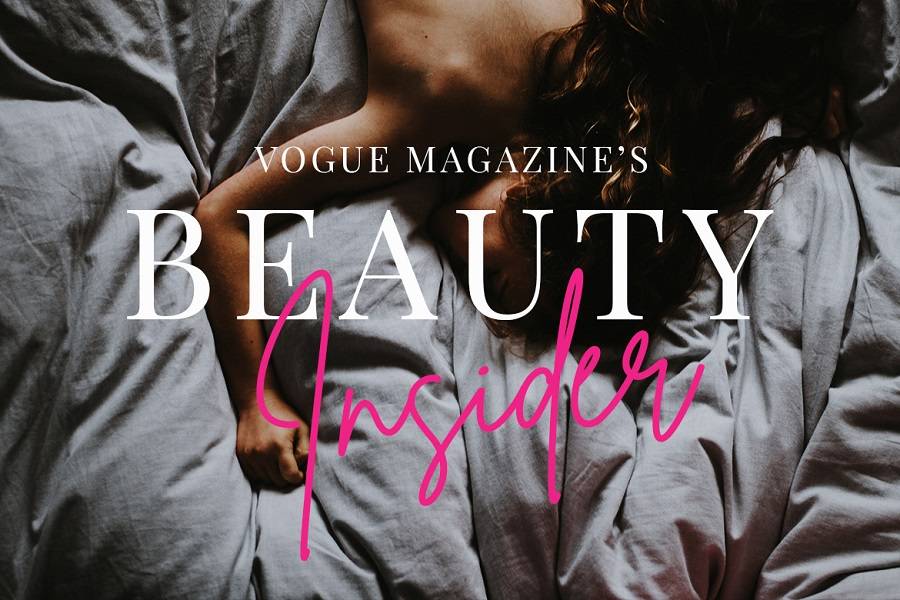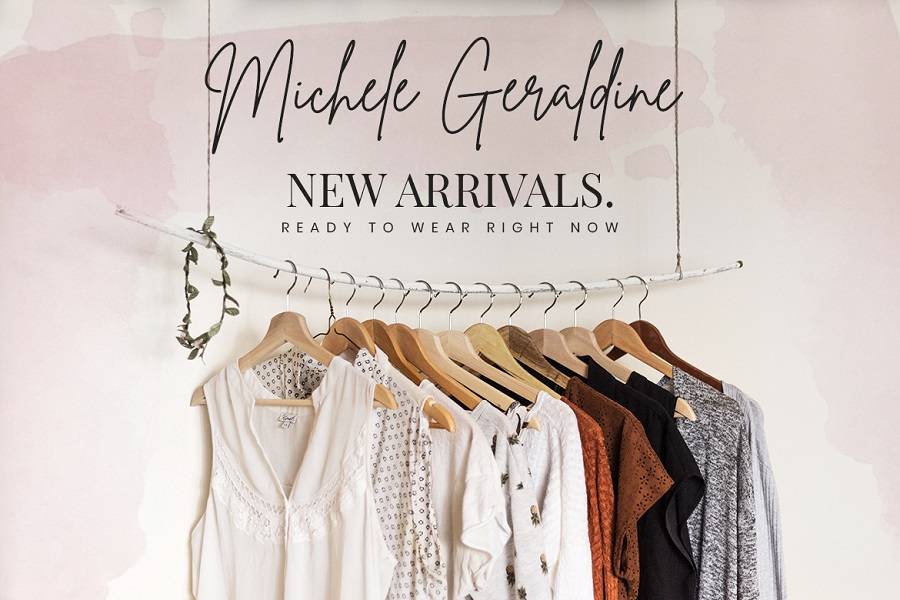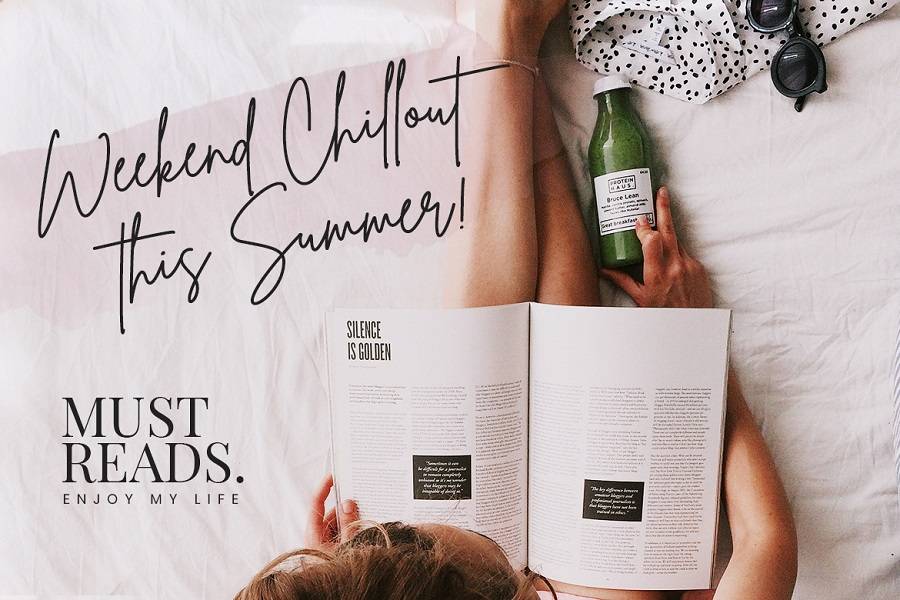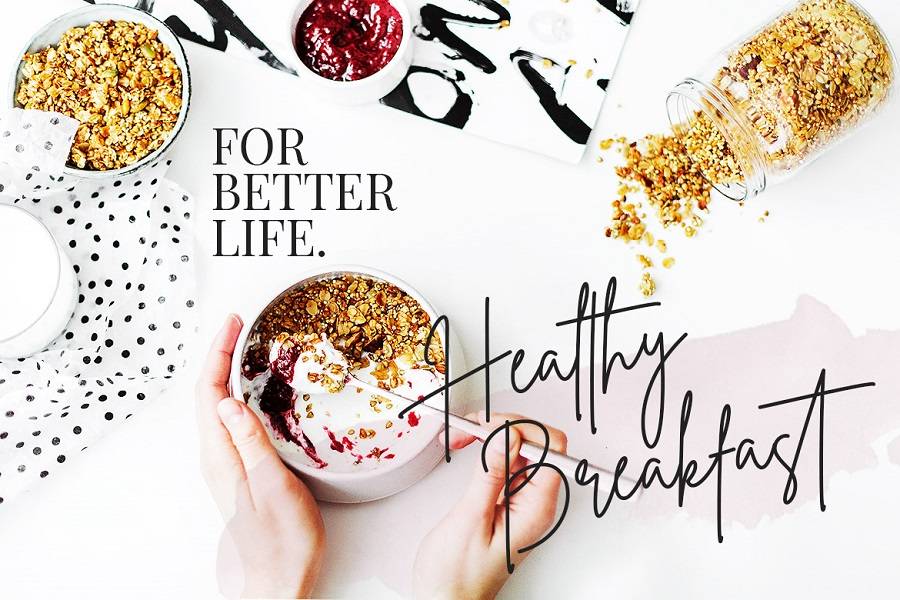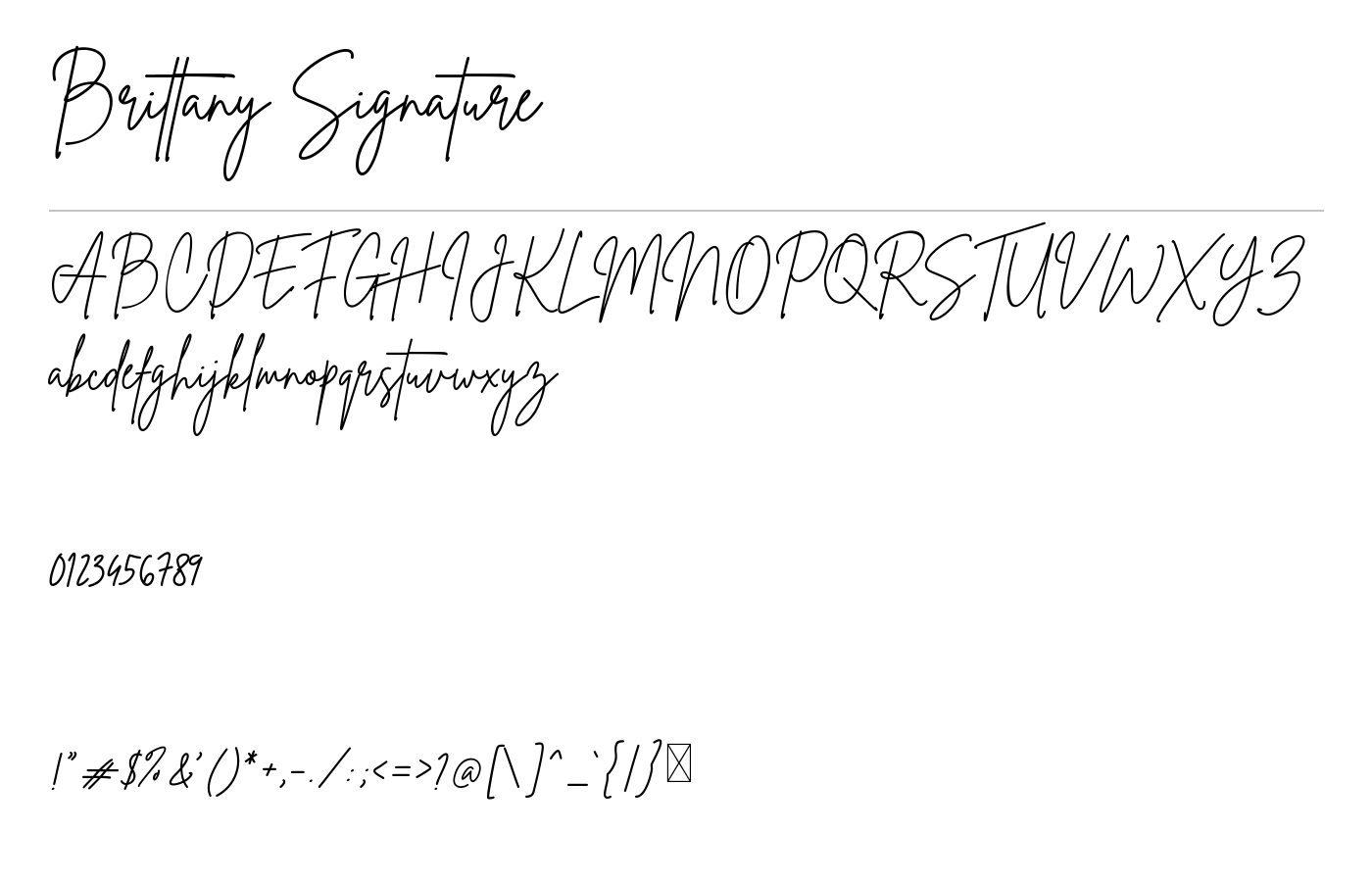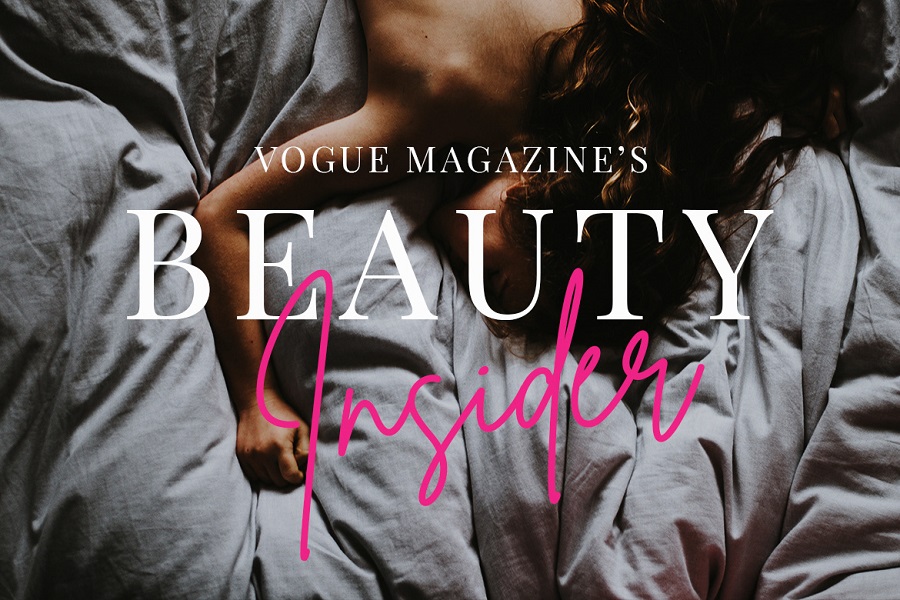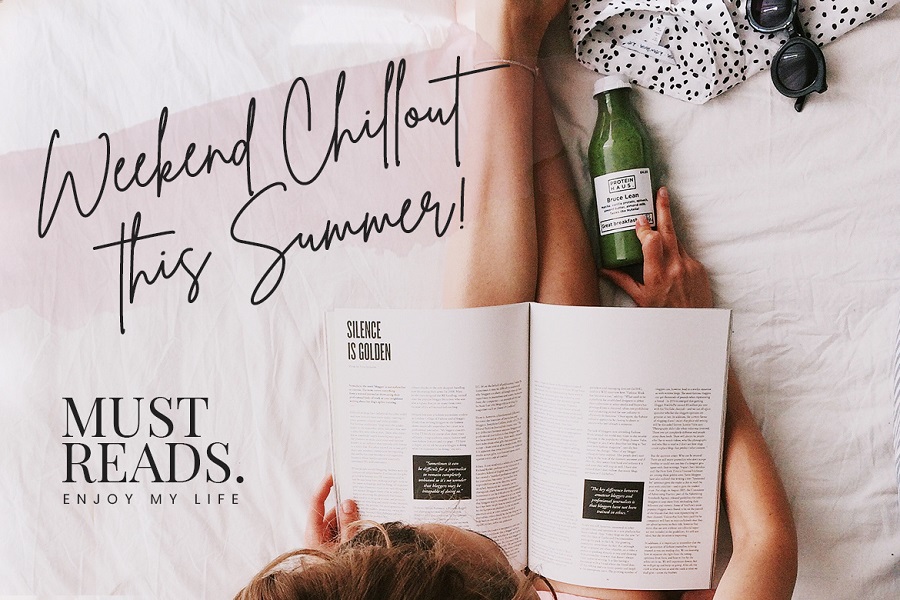
Brittany Signature Script is a delicate, handwritten script font with an elegant and airy feel, featuring tall, slender letterforms and smooth, flowing connections. Its thin strokes and casual yet refined style make it perfect for branding, invitations, and creative projects that want to convey a personal, stylish, and modern touch. This font works wonderfully in logos and headlines where a sophisticated, handwritten signature look is desired.
Brittany Signature Script
About Brittany Signature Script
| Font family | Brittany Signature Script |